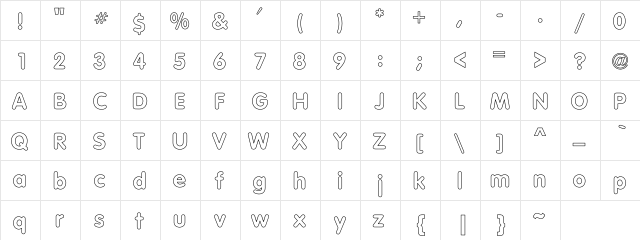
Tubular Hollow Regular
Design Context for Tubular Hollow Typeface
Tubular Hollow is a composed and adaptable typeface that performs quietly and consistently across a wide range of design contexts.